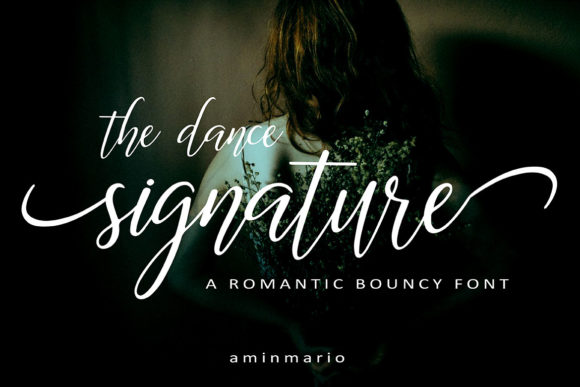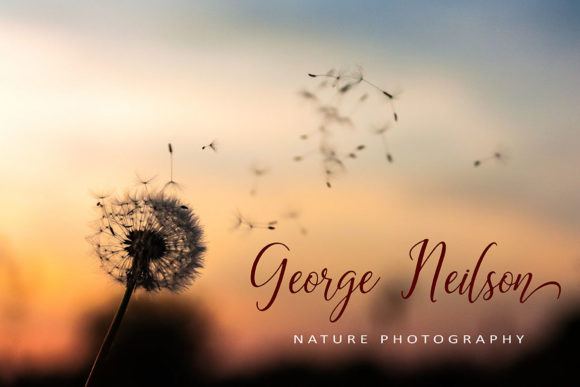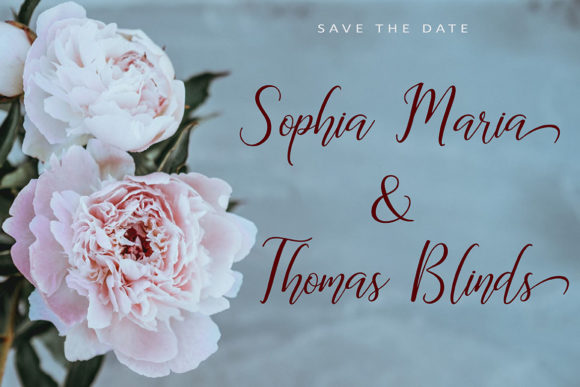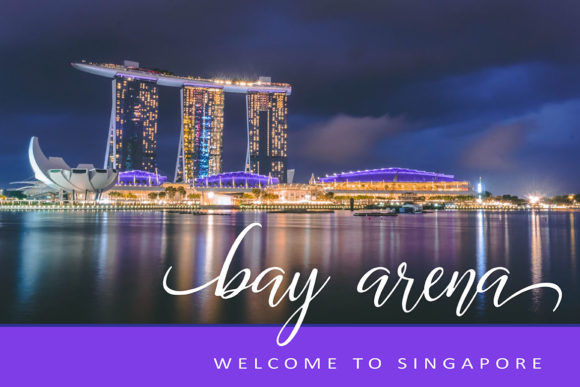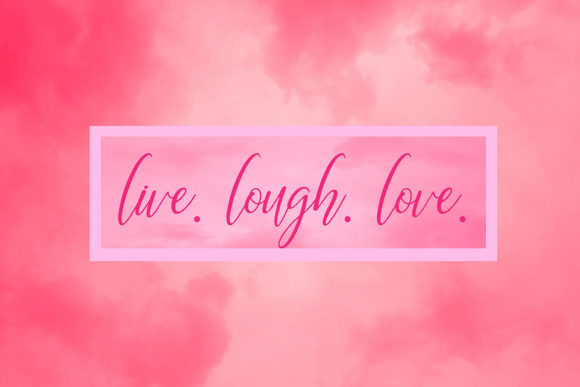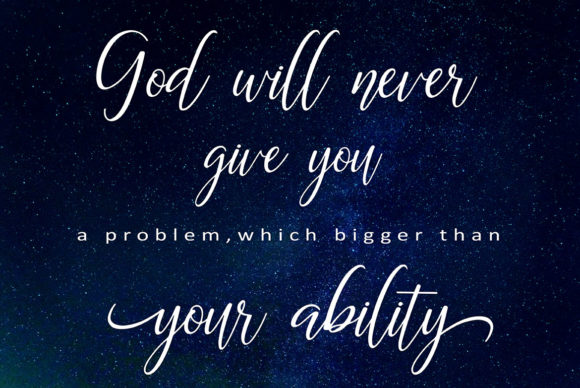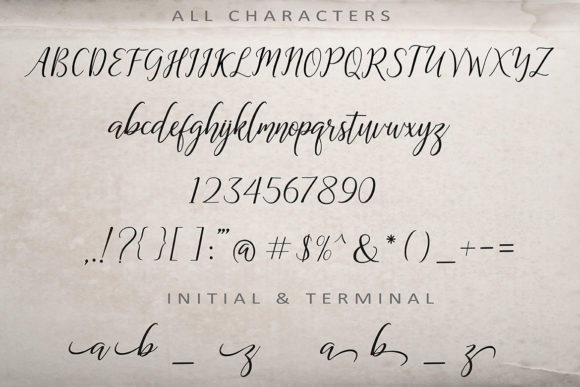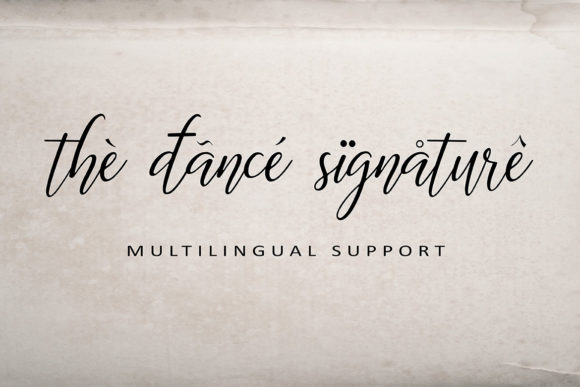
The Dance Signature Font
About The Dance Signature Font
The Dance Signature is a modern handwritten script font. It has a dancing baseline and is perfect for adding a natural and classy touch to your designs.